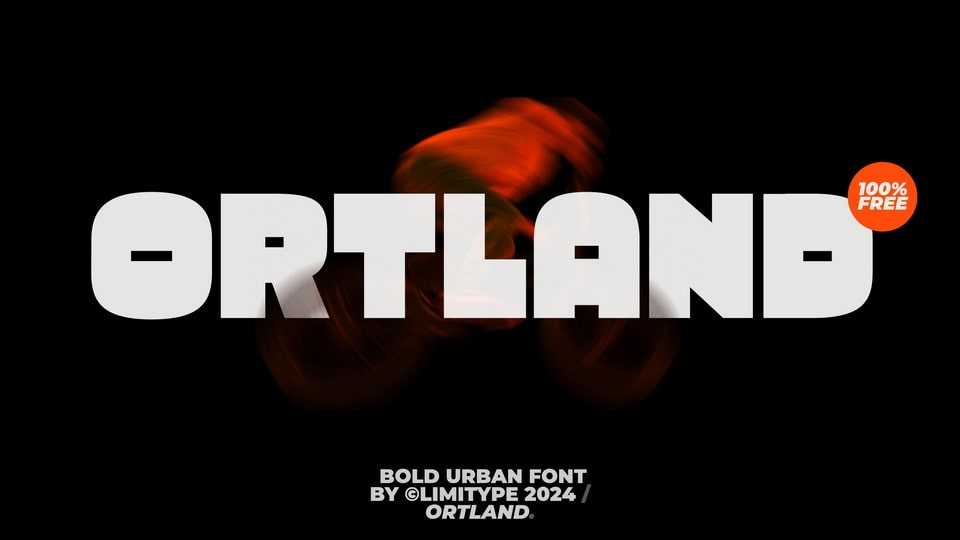
Download Ortland font, a display typeface made in an urban style with a bold and modern impression. Its bold weight and contemporary design make it perfect for streetwear branding, eye-catching posters, edgy logos, and vibrant social media graphics.